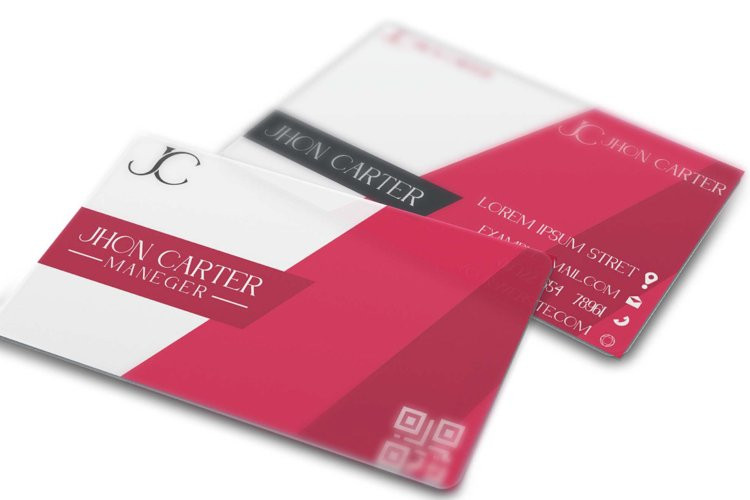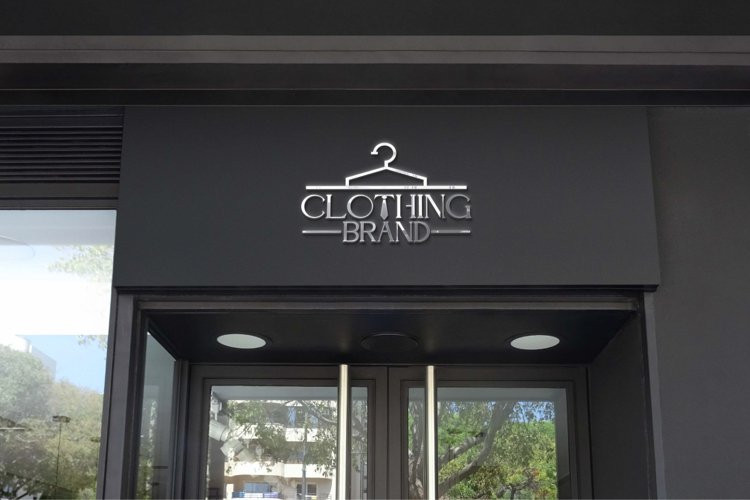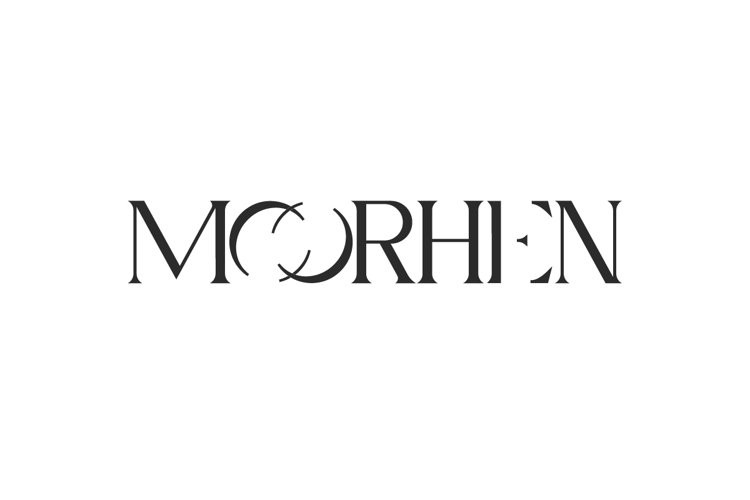
Moorhen Font
Moorhen Font is a modern, minimal & classic display font that mix style between simplicity and uniqueness. This is an all uppercases font without lowercases letters. The font is great in layout design, labels, headlines, packaging, quotes, etc